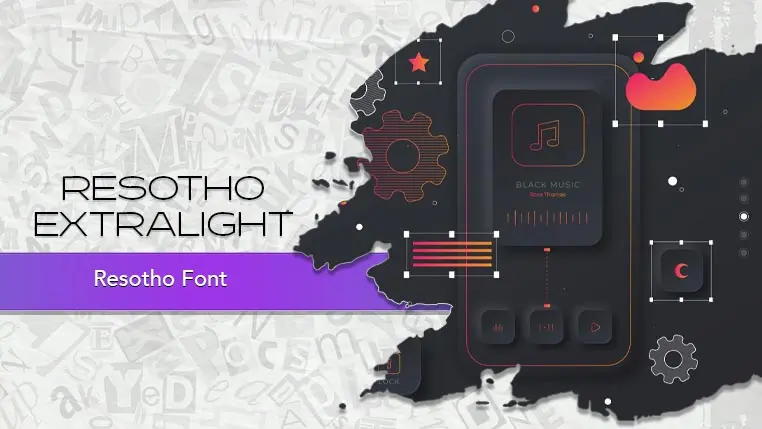
The Resotho font family may be ideal for you if you enjoy working on an artistic design project. The lively, expressive look of this typeface, which was created by gluk, makes it ideal for Editorial Design, Web Design and UI/UX. You can use this on Headlines and Titles especially in its bolder weights, Resotho makes impactful headlines for posters, magazines, websites, and advertisements. and other light-hearted visual projects.
Extralight, Extralight Italic are the two primary font styles of the Resotho font family. You may build dynamic, visually appealing text layouts with the distinct flair that each style offers. With crisp, readable lines and a relaxed tone.